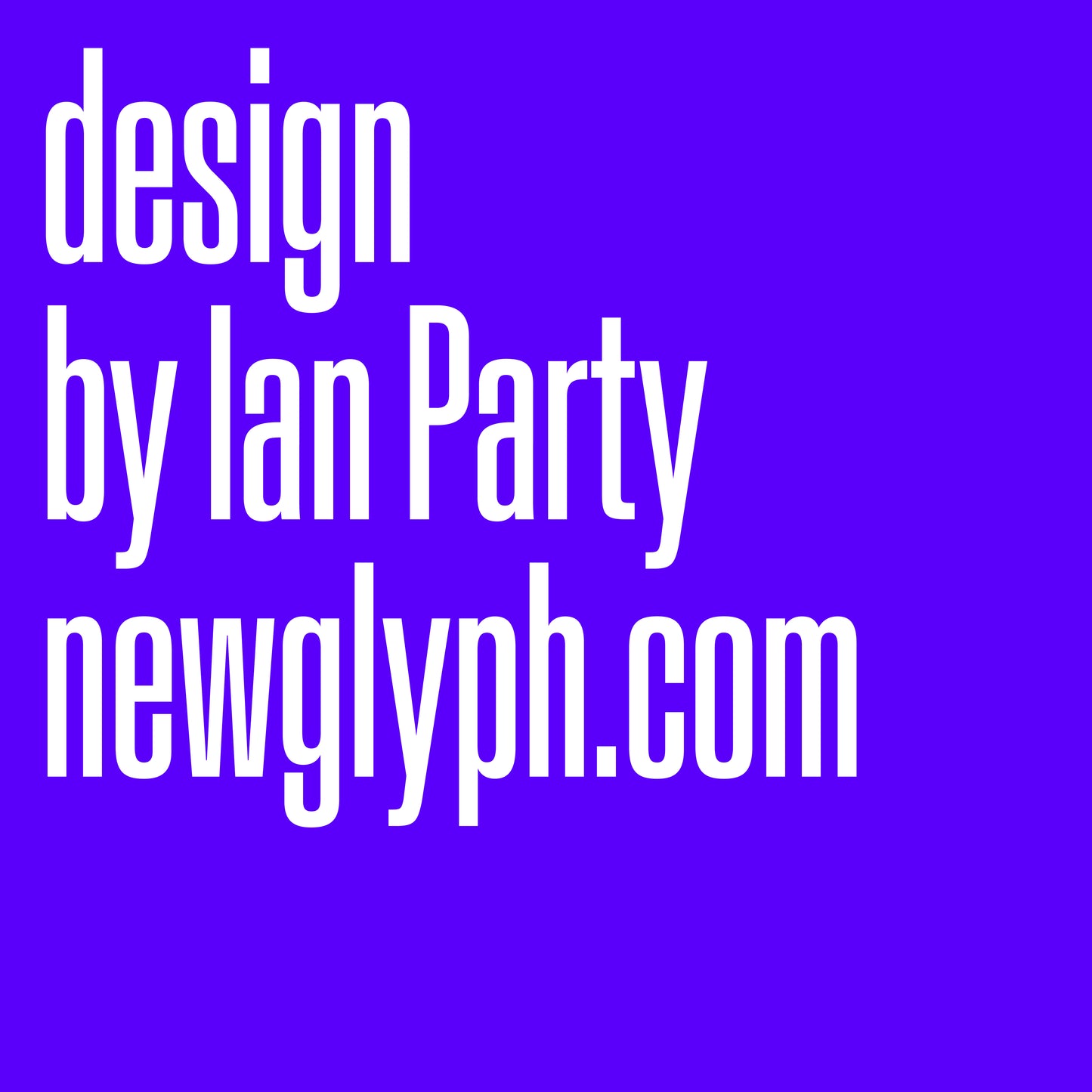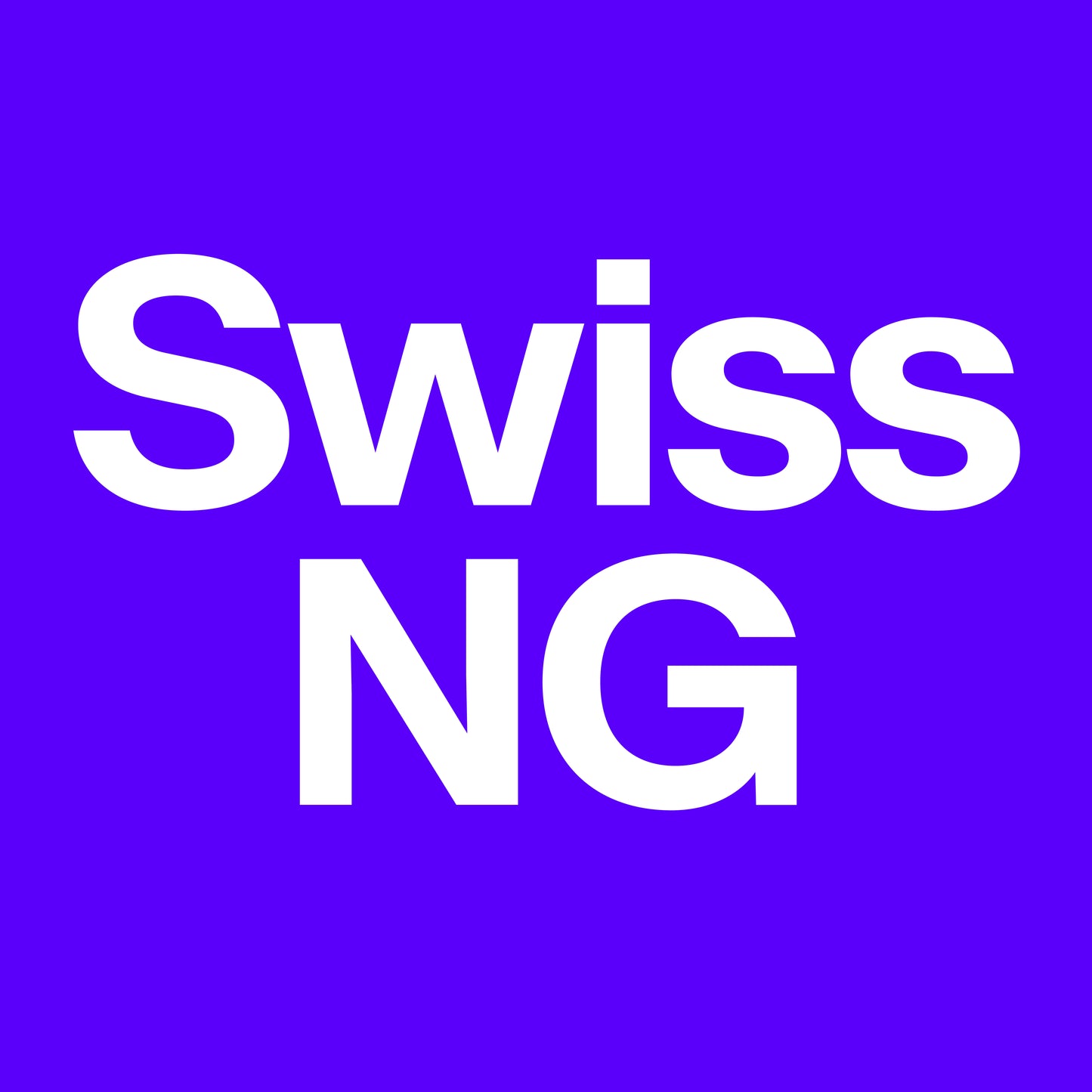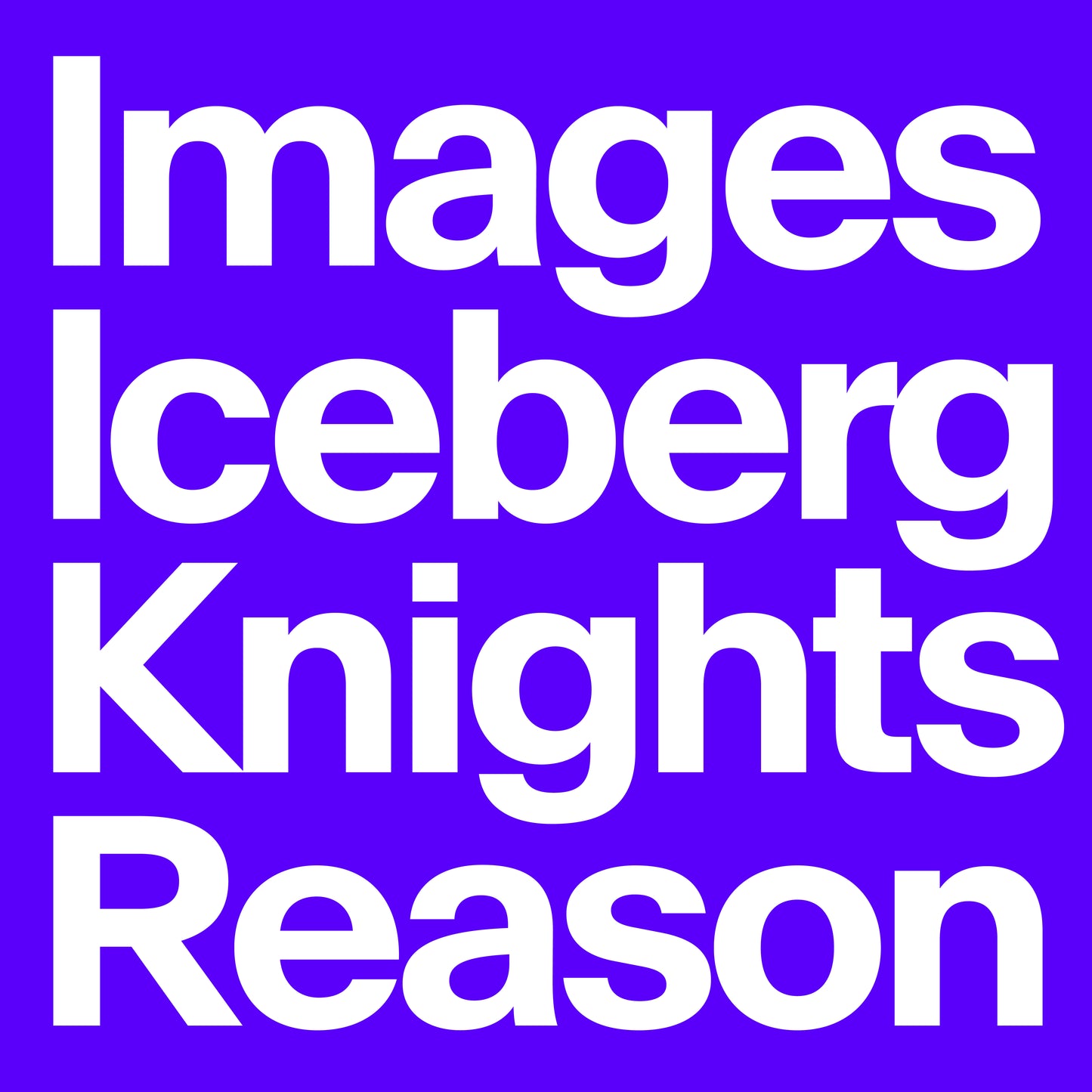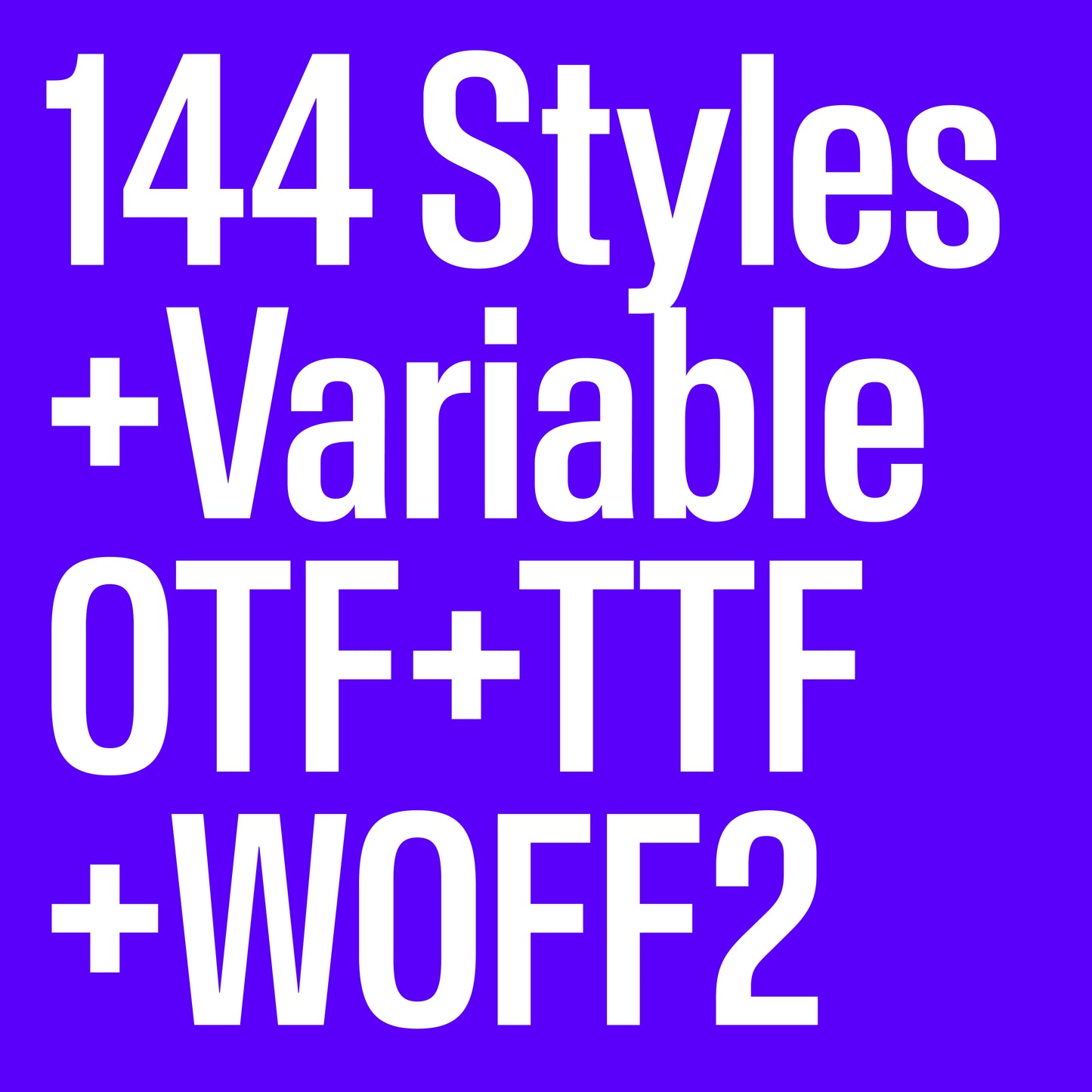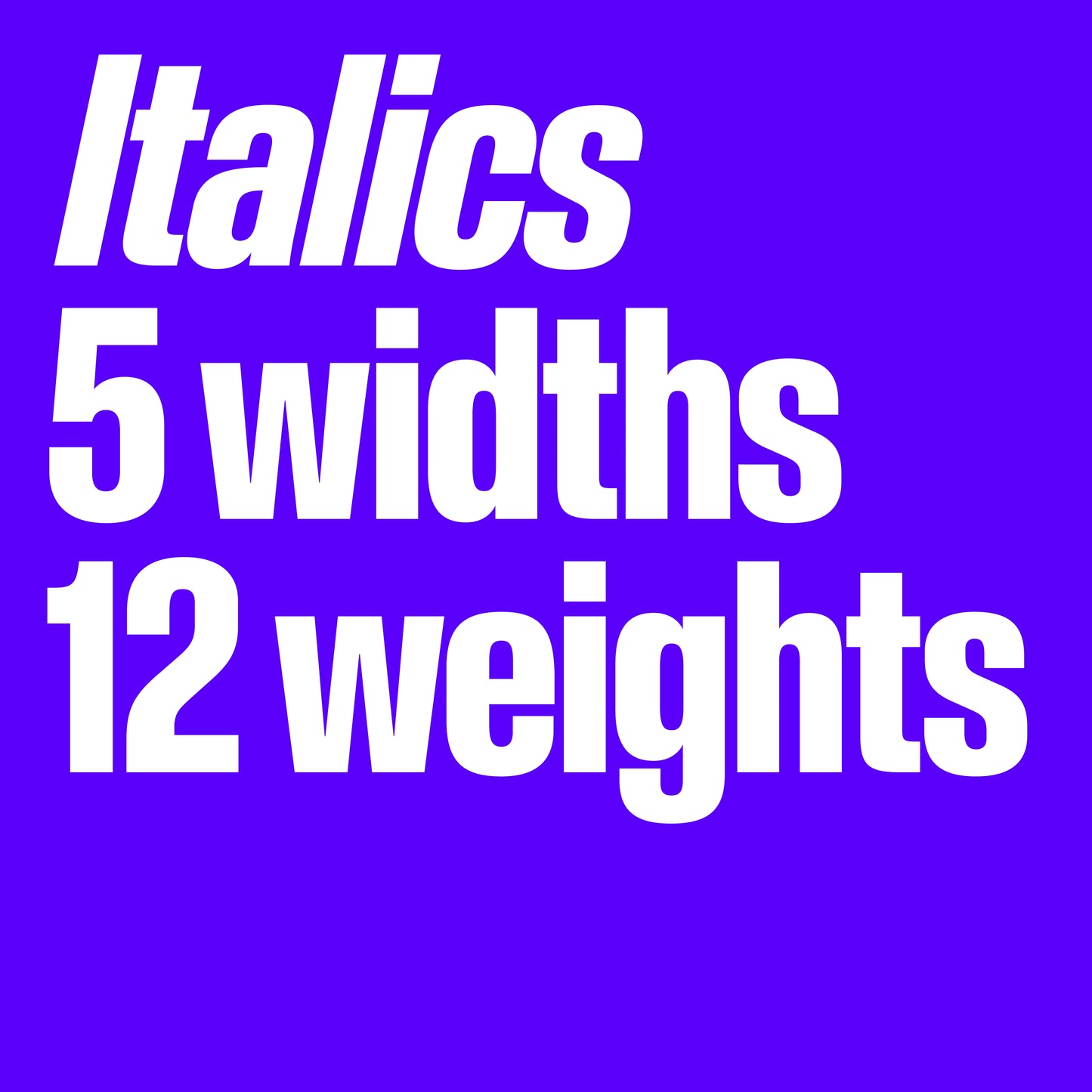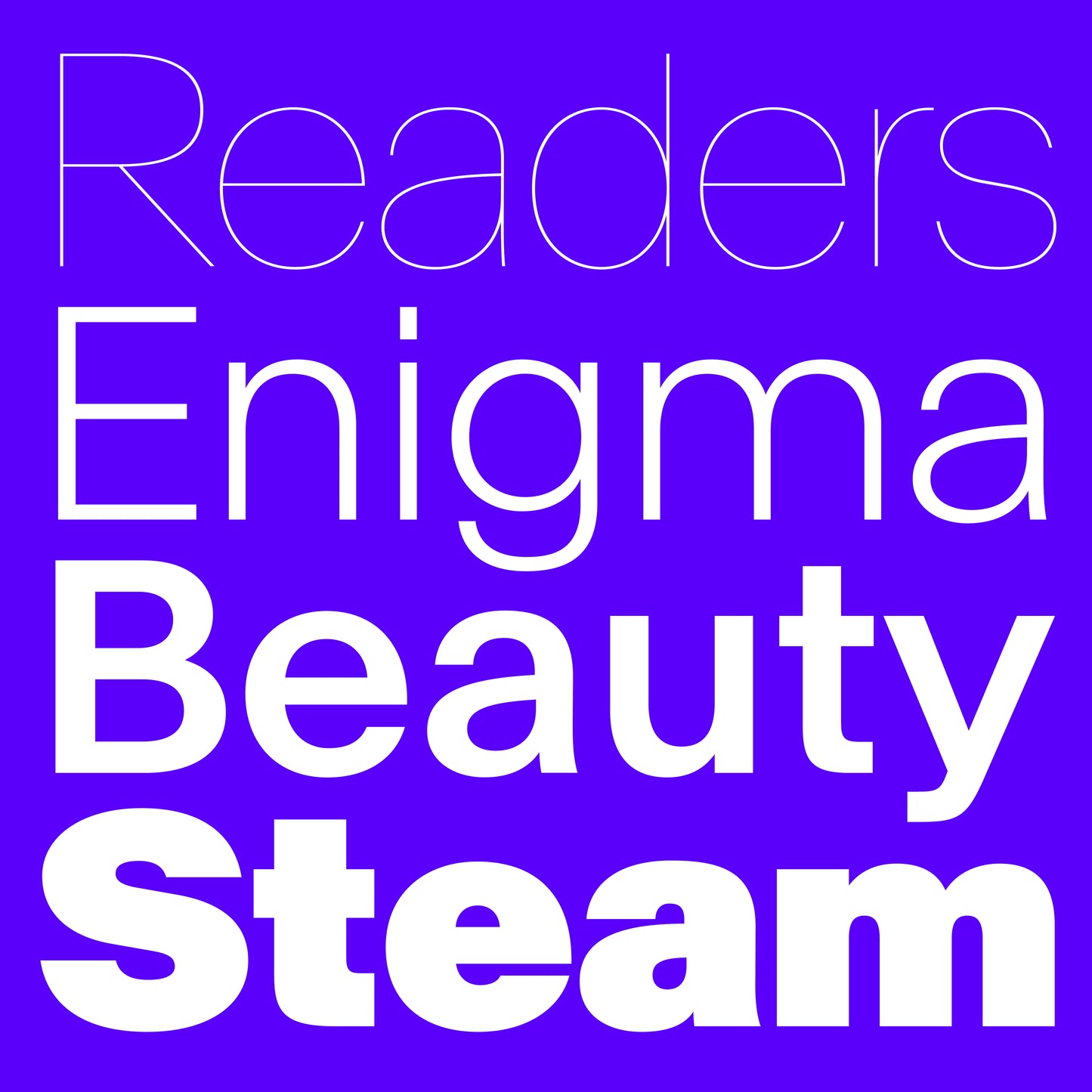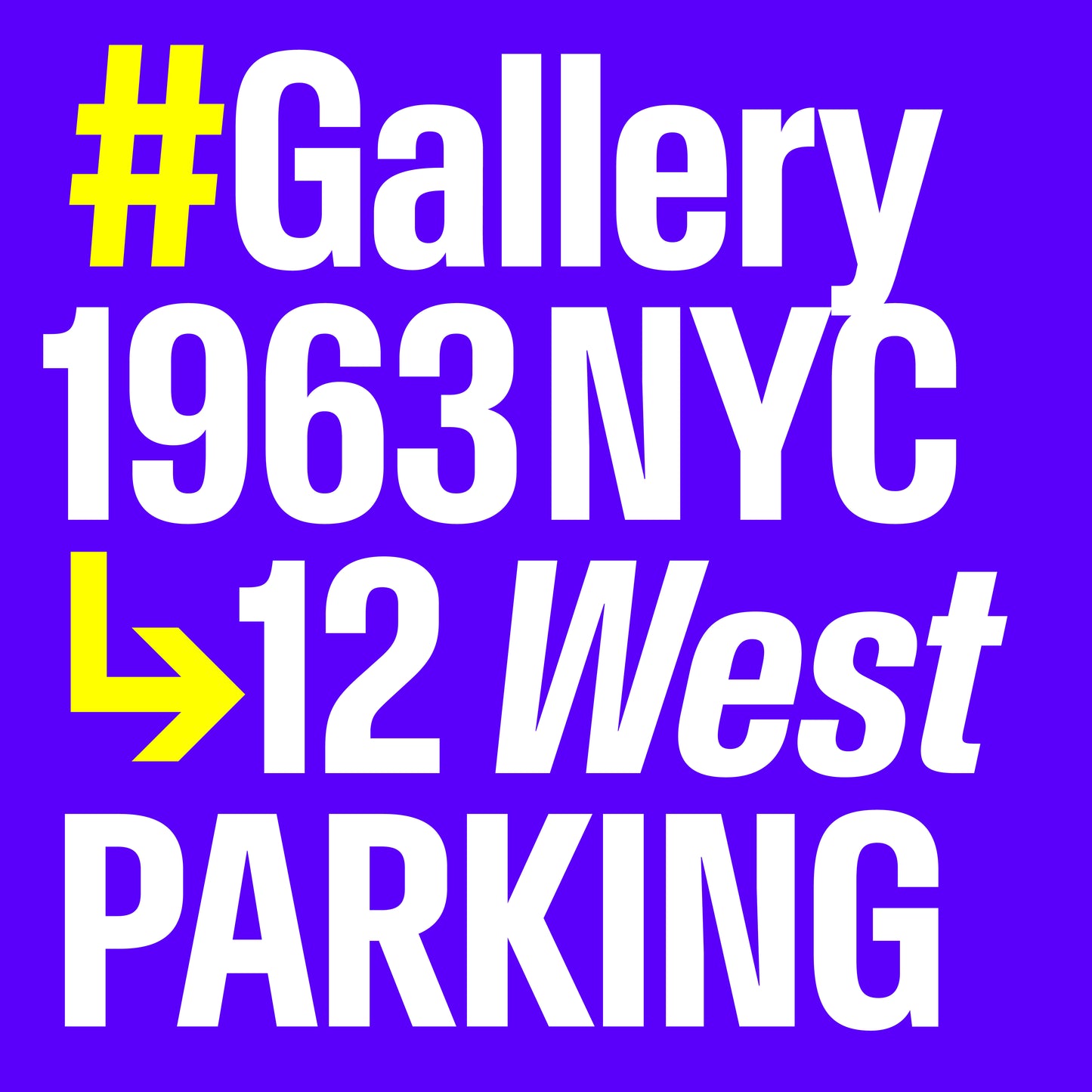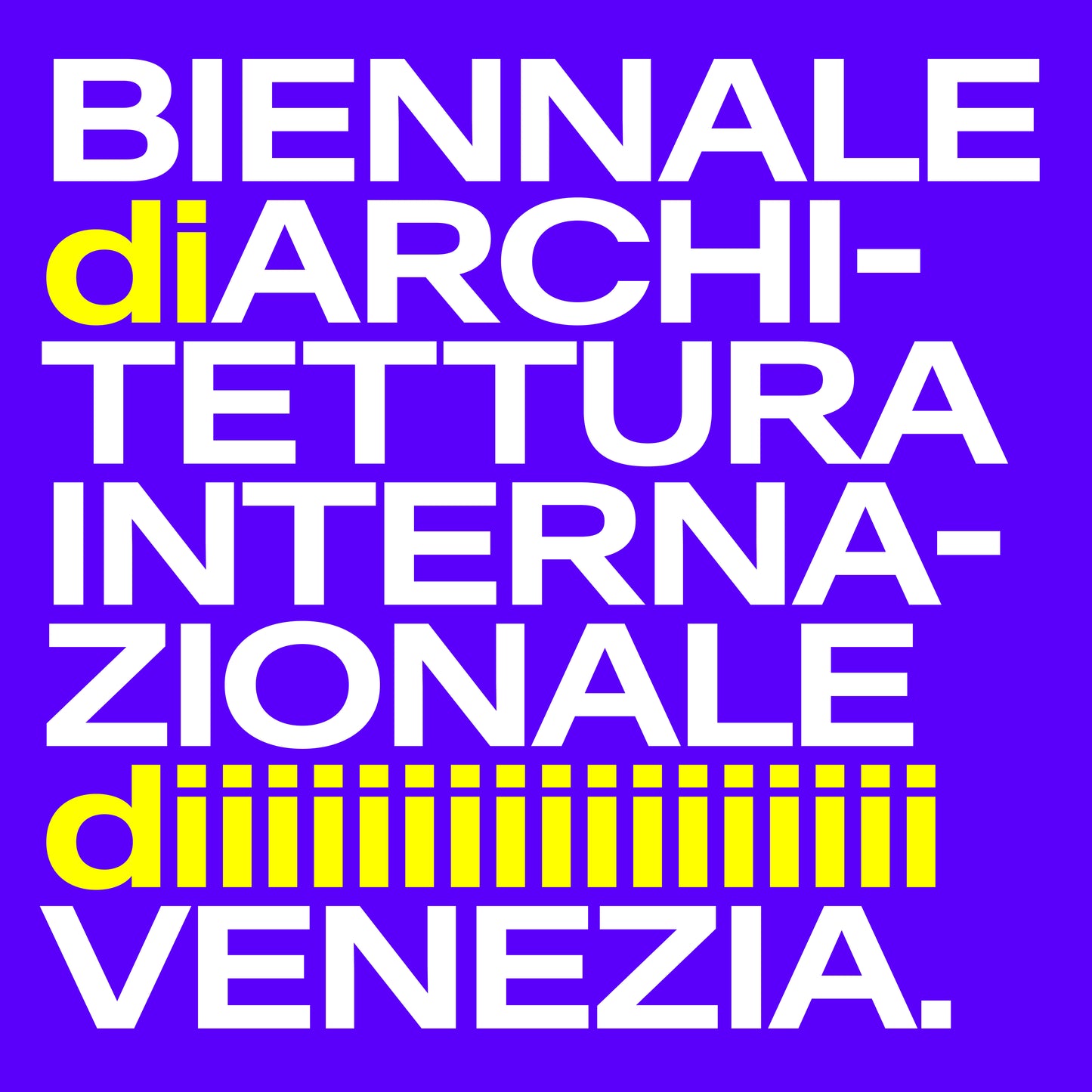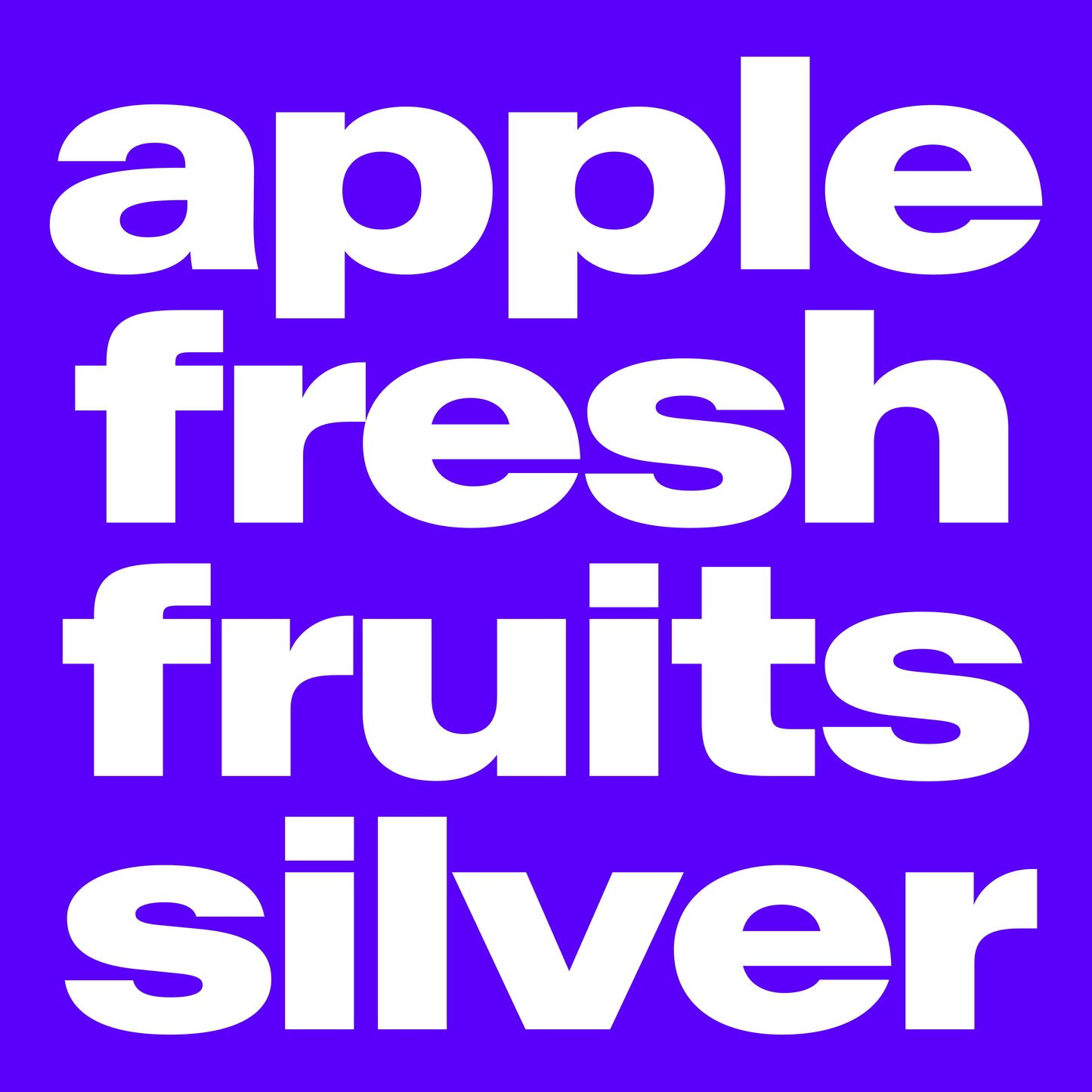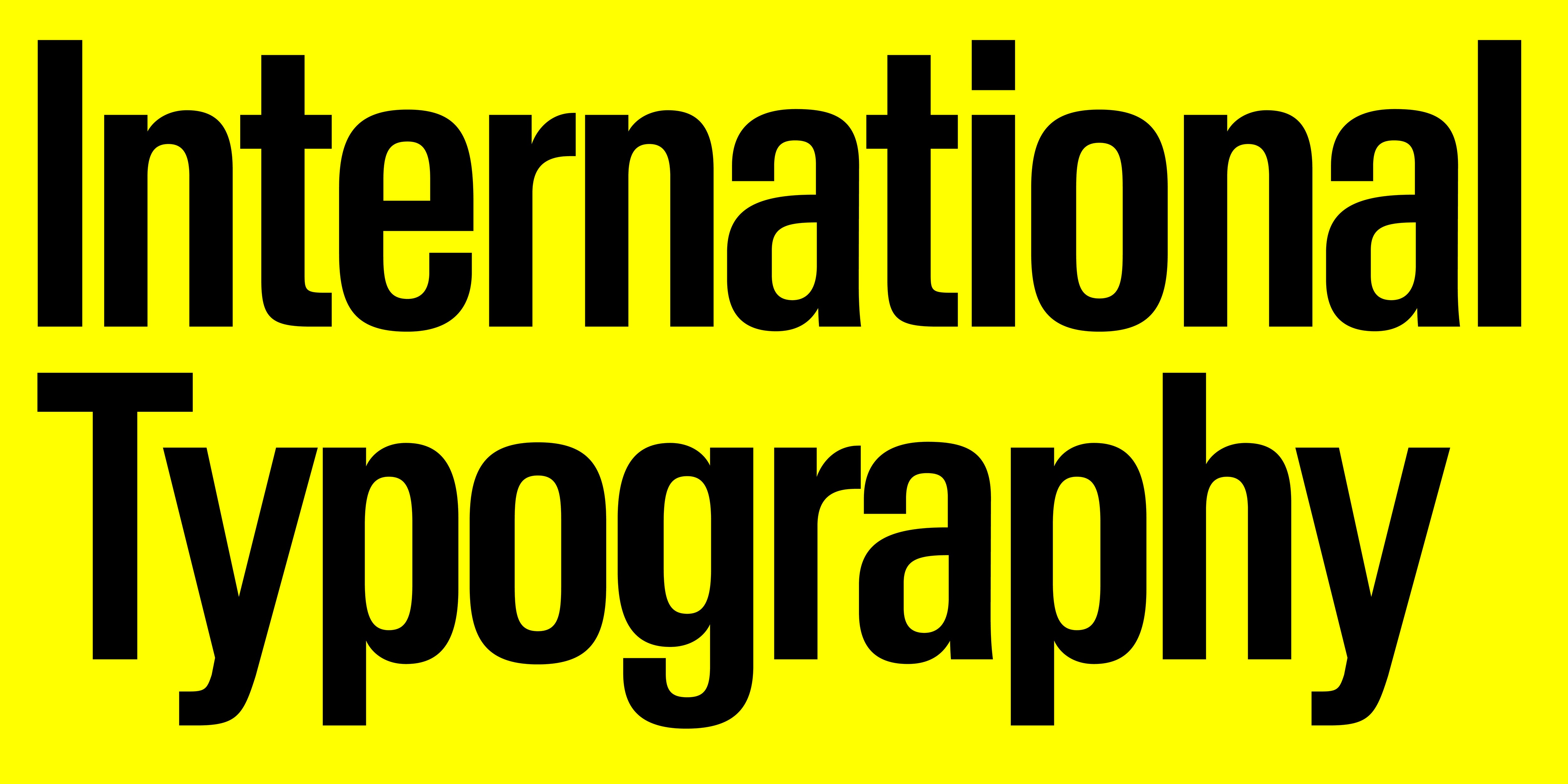
Swiss NG
Swiss NG, designed by Ian Party, is a variable neo-grotesque typeface that pays tribute to the legendary Swiss typography movement. Inspired by the mid-century Swiss grotesques that revolutionised graphic design, it refines the timeless principles of clarity, neutrality, and functionality while adapting to the needs of today’s creatives.
Rooted in the legacy of typefaces like Helvetica and Univers, Swiss NG embodies the rational structure and geometric precision that define the International Typographic Style. Its tight spacing, clean proportions, and subtle modern refinements make it a powerful tool for designers who seek both versatility and impact.
With 20 styles and a variable font that allows for seamless weight adjustments, Swiss NG is designed for branding, editorial design, web, and UI/UX, where precision and adaptability are key. Whether in bold headlines or refined body text, it remains effortlessly readable and aesthetically timeless.
— TOTAL STYLES : 20
— VARIABLE
— ITALICS
— REGULAR, CONDENSED, EXTENDED STYLES
— PUNCTUATION & SYMBOLS
— DIACRITICS & LIGATURES